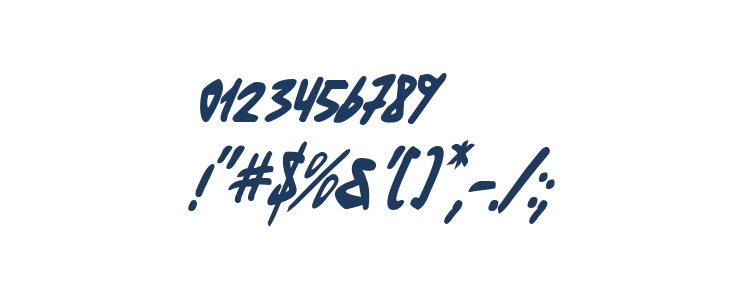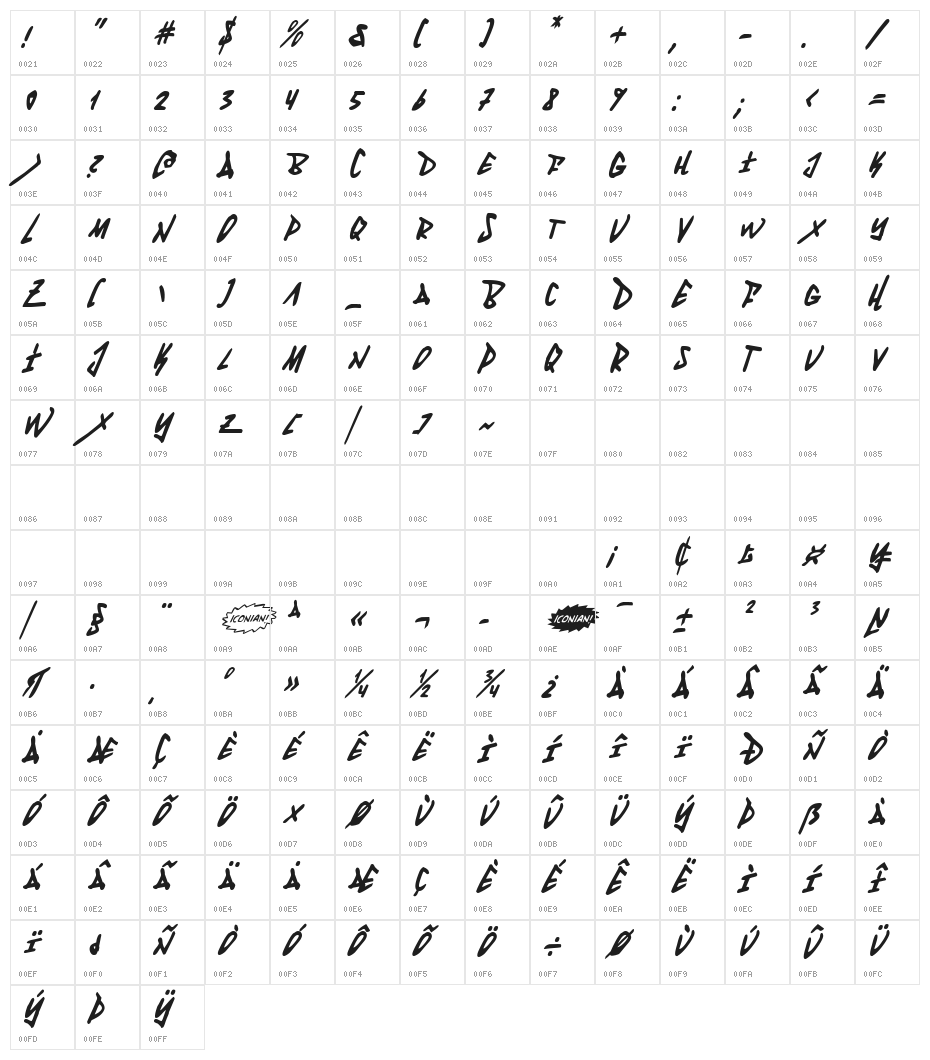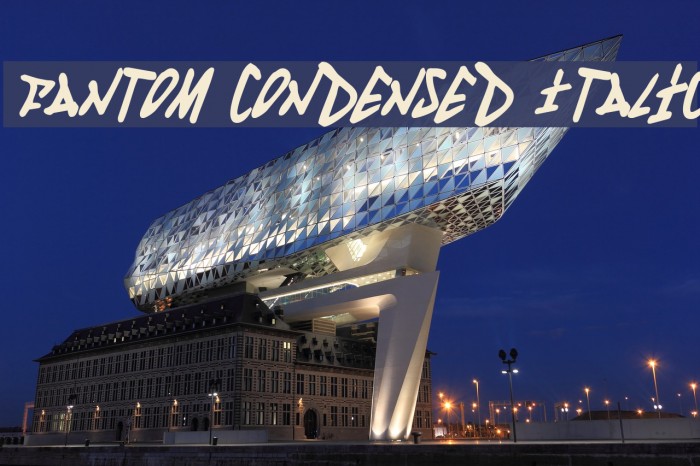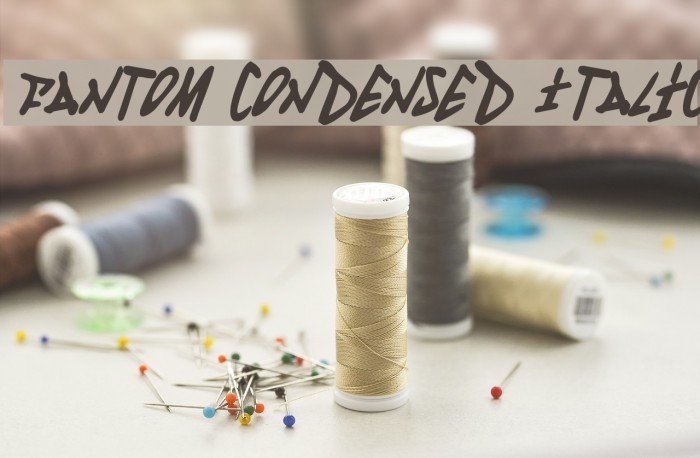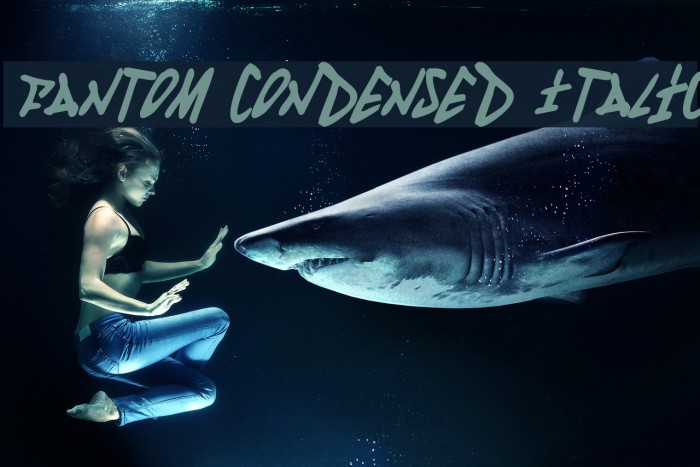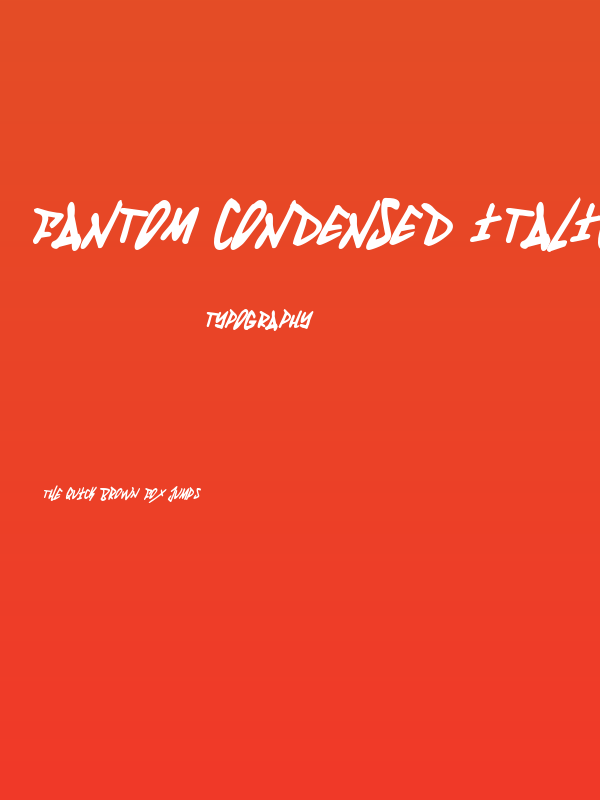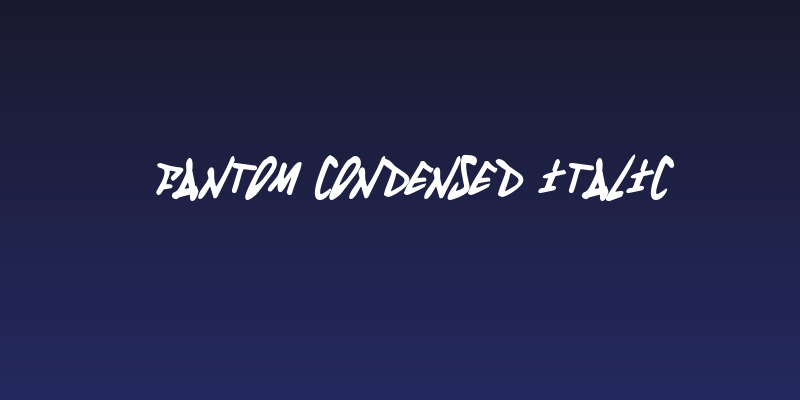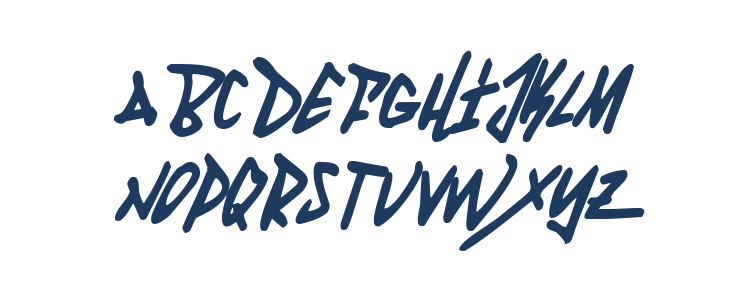
Fantom Condensed Italic Font
Fantom Condensed Italic Description
This font exhibits a bold and dynamic handwritten style, characterized by its condensed and italicized form. The strokes are thick and expressive, giving each character a sense of movement and energy. The uppercase and lowercase letters maintain a consistent style, with sharp angles and fluid curves that create a cohesive look. The numbers and special characters follow the same design principles, ensuring uniformity across all elements. This font's unique style makes it stand out, offering a modern twist on traditional handwritten fonts.
Use CaseLogos, Headlines, Creative projects
Proposed ProjectsIdeal for projects that require a personal touch, such as greeting cards, invitations, or branding materials that aim to convey creativity and individuality.